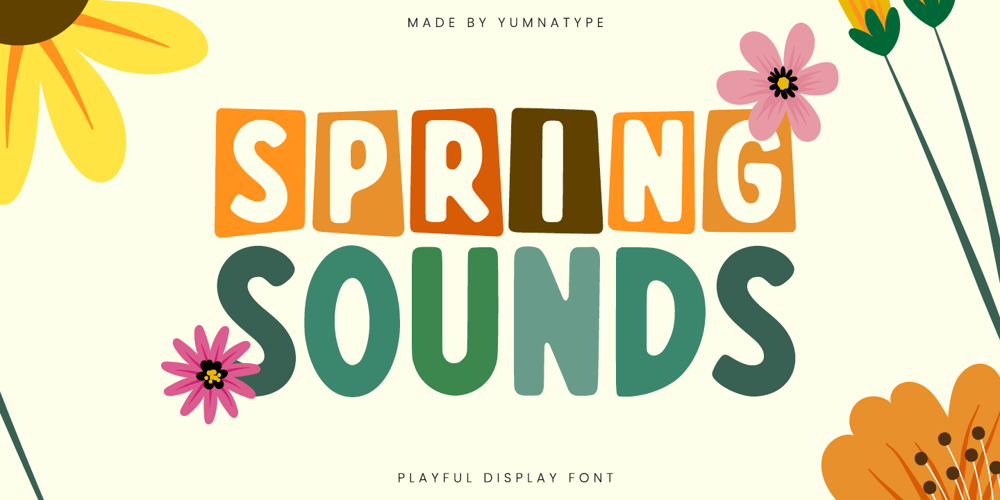
Spring Sounds Font Family was designed by Donis Miftahudin and published by Yumna Type. Spring Sounds contains 1 styles and family package options. Spring Sounds is a playful display font that brings a burst of energy to any design. Made in a unique mix of uppercase and lowercase letters all presented in an all-caps style, this font offers a varied design that keeps things interesting and lively. The bold font weight ensures a strong presence, while the low contrast maintains a smooth look. Rounded shapes add a friendly and approachable feel. In addition, enjoy the features here.Features: Ligatures Multilingual Supports PUA Encoded Numerals and Punctuations Spring Sounds fits in headlines, logos, posters, flyers, branding materials, print media, editorial layouts, and many more designs. Find out more ways to use this font by taking a look at the font preview.Thanks for purchasing our fonts. Hopefully, you have a great time using our font. Feel free to contact us anytime for further information or when you have trouble with the font. Thanks a lot and happy designing.